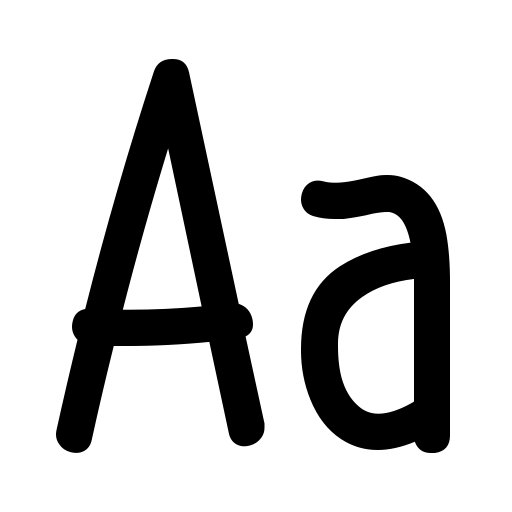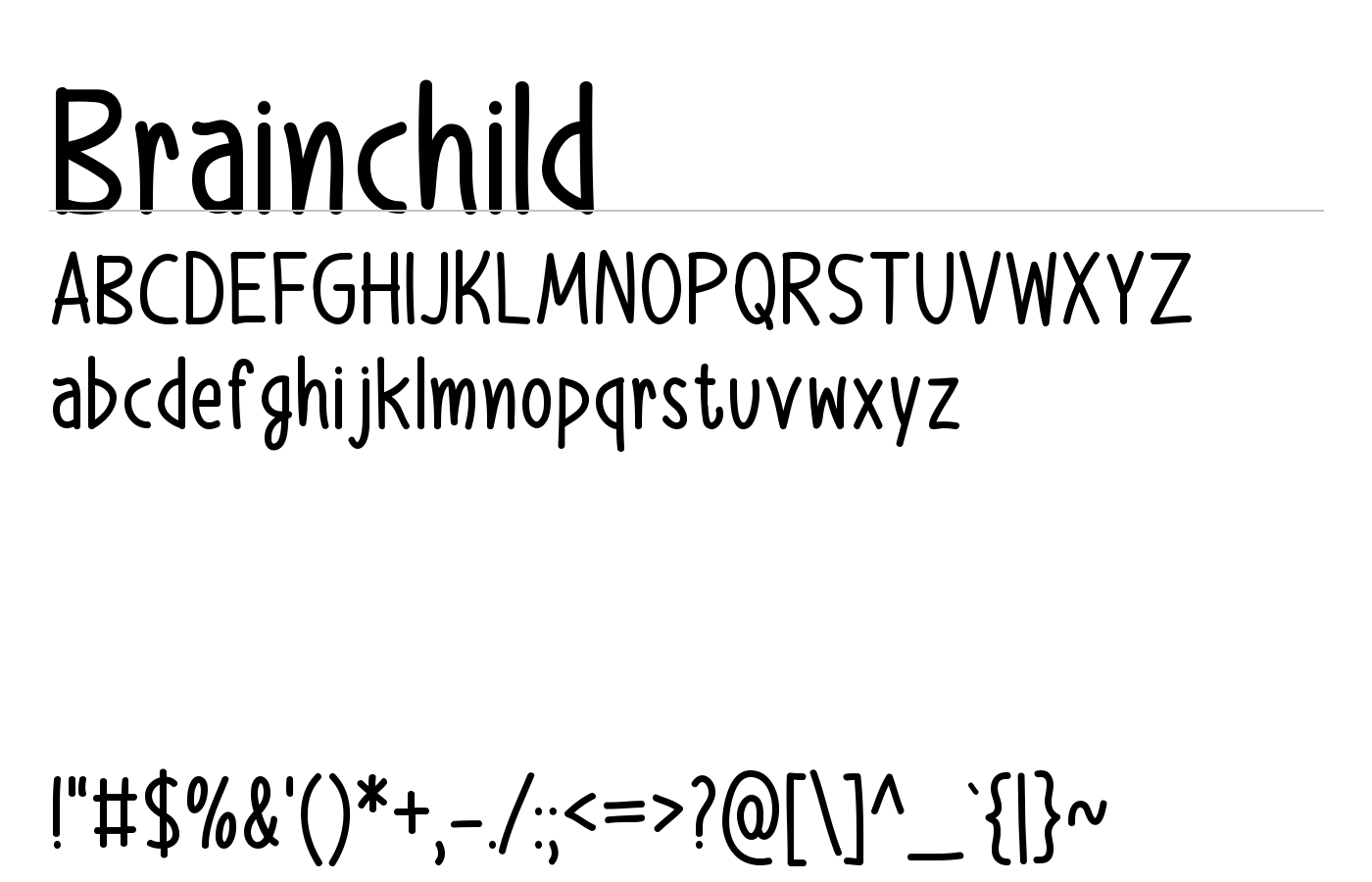
Brainchild is a playful and casual sans serif font with a hand-drawn, slightly quirky style that feels friendly and approachable. Its tall, narrow letterforms with irregular strokes give it an informal and creative vibe, making it ideal for children's materials, informal branding, and fun, lighthearted design projects. This font works best in headlines and display use where a personal, warm touch is desired.
Brainchild Font
About Brainchild Font